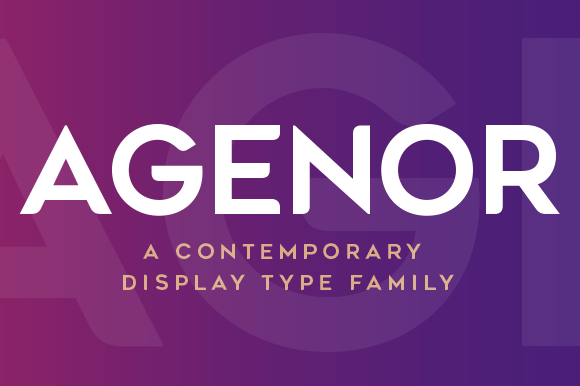
Agenor Font: A Versatile All-Caps Display Typeface Family
In the world of typography, a font can make or break the visual identity of a brand. With so many options available, it’s essential to choose a typeface that not only looks great but also communicates the message effectively. One such font that has gained popularity among designers and marketers is Agenor Font. In this article, we’ll explore the features, benefits, and uses of Agenor Font, an all-caps display typeface family that is suitable for headlines, headings, branding, posters, packaging, titles, and logos.
What is Agenor Font?
Agenor Font is an all-caps display typeface family designed to make a statement. It comes in five weights, ranging from light to bold, making it versatile for various design applications. The font is characterized by its clean lines, geometric shapes, and a distinctive style that sets it apart from other typefaces.
Key Features of Agenor Font
- All-caps design: Agenor Font is designed specifically for headlines, titles, and other display purposes, making it perfect for grabbing attention.
- Five weights: The font comes in five weights, allowing designers to choose the perfect weight for their design, from light and elegant to bold and impactful.
- Geometric shapes: Agenor Font features geometric shapes, giving it a modern and sleek look that’s perfect for contemporary designs.
- Clean lines: The font’s clean lines ensure that it remains legible even at large sizes, making it ideal for posters, billboards, and other display applications.
Uses of Agenor Font
Agenor Font is a versatile typeface that can be used in various design applications, including:
- Headlines and titles: The font’s bold and attention-grabbing design makes it perfect for headlines, titles, and other display purposes.
- Branding and logos: Agenor Font’s unique style and geometric shapes make it an excellent choice for branding and logo design.
- Posters and packaging: The font’s clean lines and bold weights make it suitable for posters, packaging, and other display materials.
- Headings and subheadings: Agenor Font can also be used for headings and subheadings, adding a touch of elegance and sophistication to any design.
Benefits of Using Agenor Font
Using Agenor Font in your design projects offers several benefits, including:
- Improved legibility: The font’s clean lines and geometric shapes ensure that it remains legible even at large sizes.
- Enhanced visual appeal: Agenor Font’s unique style and bold weights make it perfect for grabbing attention and adding visual interest to any design.
- Versatility: The font’s five weights and all-caps design make it suitable for various design applications, from headlines to logos.
- Professional look: Agenor Font’s sleek and modern design gives any project a professional and polished look.
Tips for Using Agenor Font Effectively
To get the most out of Agenor Font, follow these tips:
- Choose the right weight: Select the weight that best suits your design, from light and elegant to bold and impactful.
- Use it for headlines and titles: Agenor Font is designed specifically for headlines and titles, so use it to grab attention and add visual interest.
- Pair it with other fonts: Combine Agenor Font with other fonts to create a unique and visually appealing design.
- Experiment with colors and textures: Try out different colors and textures to add depth and interest to your design.
Agenor Font is a versatile and stylish all-caps display typeface family that’s perfect for headlines, headings, branding, posters, packaging, titles, and logos. With its clean lines, geometric shapes, and five weights, it’s an excellent choice for designers and marketers looking to add a touch of elegance and sophistication to their designs. By following the tips outlined in this article, you can use Agenor Font effectively and create stunning designs that grab attention and communicate your message.